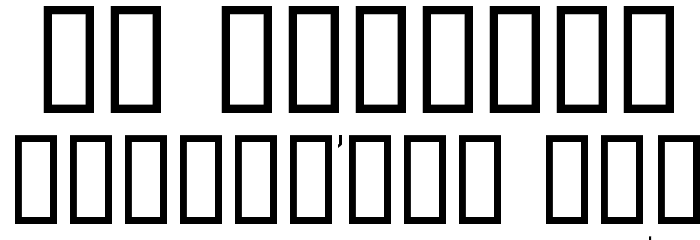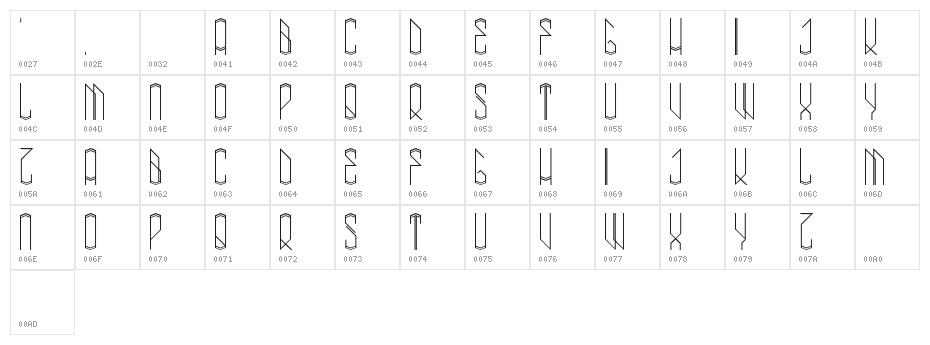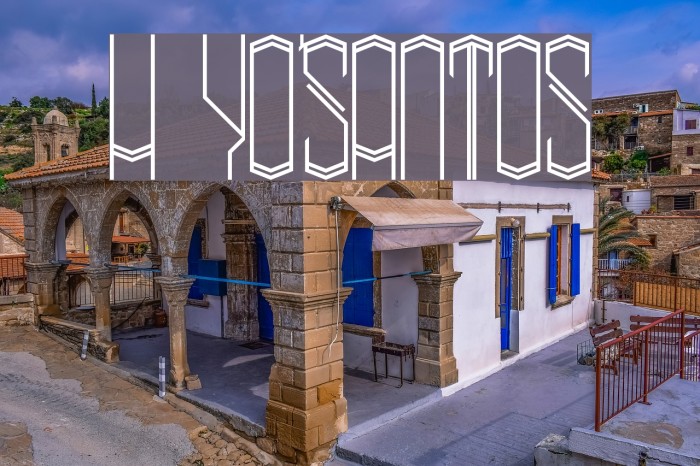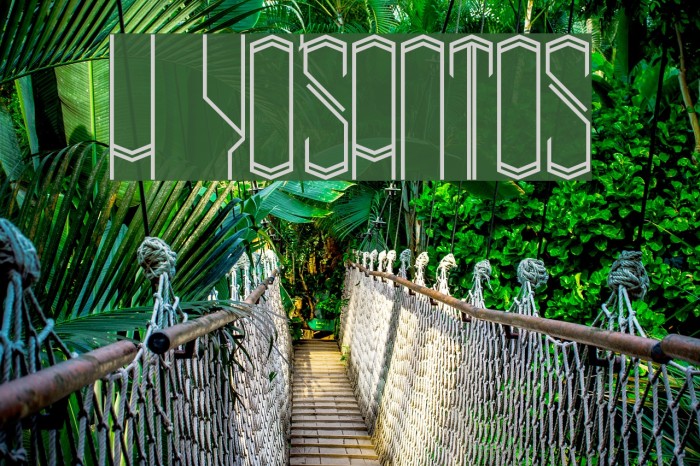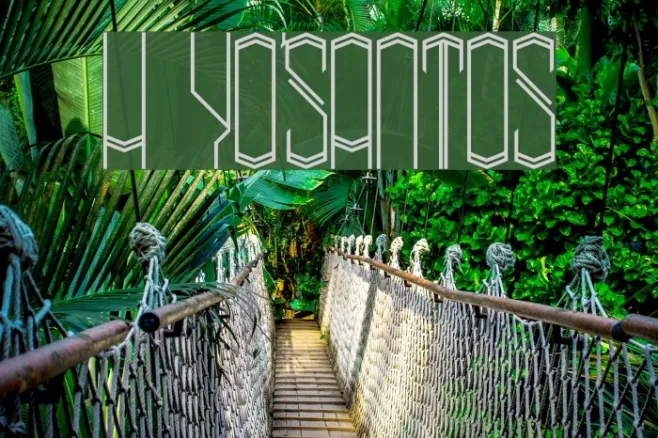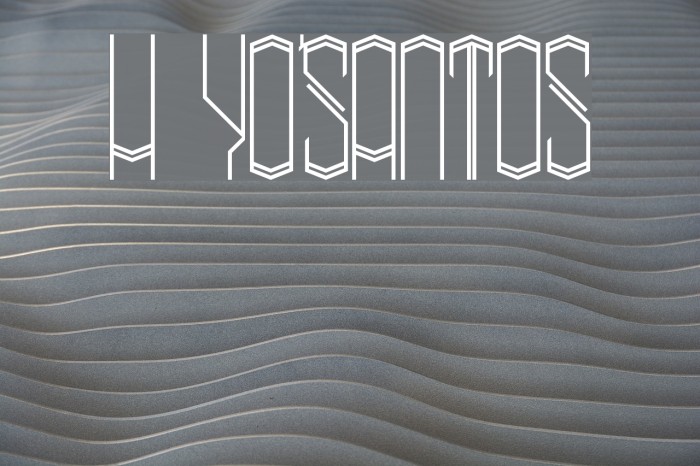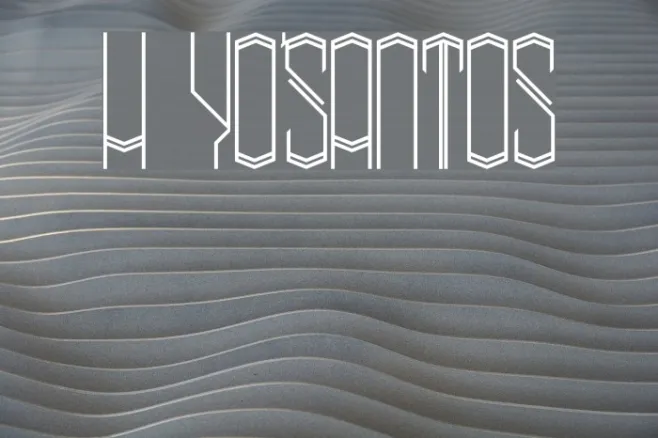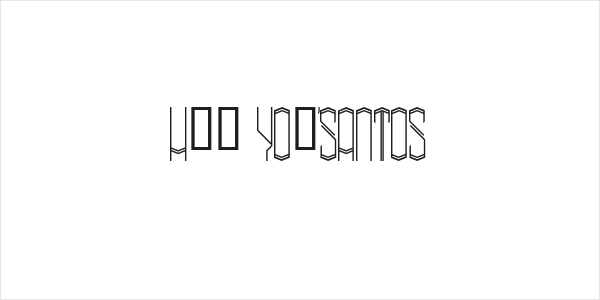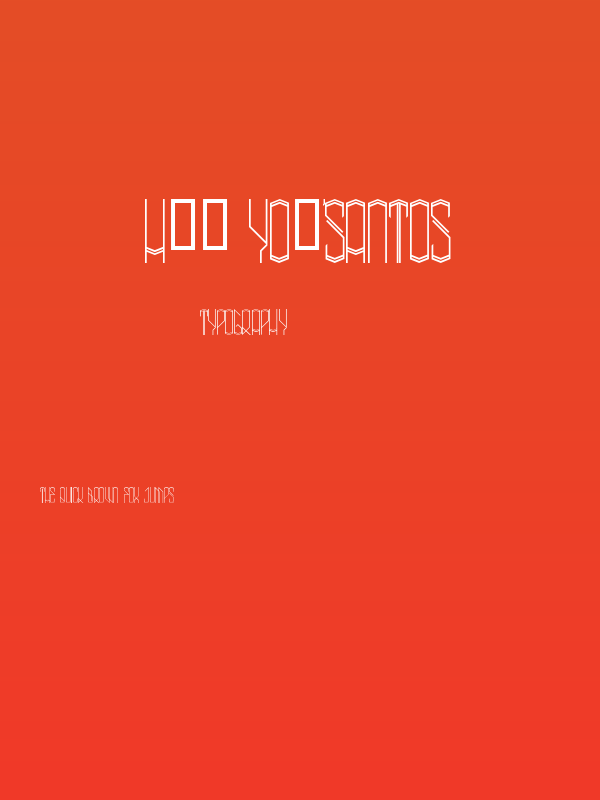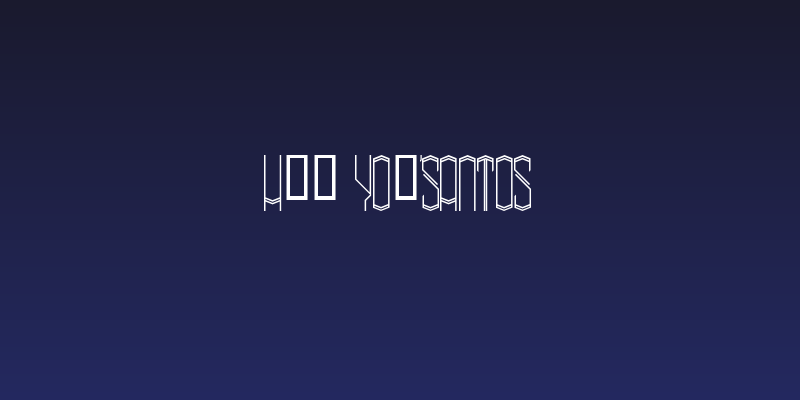
H74 Yo'Santos Font
H74 Yo'Santos Description
This font features a highly geometric and angular design, characterized by its sharp lines and intricate patterns. Each character is constructed with a series of parallel lines and angles, creating a three-dimensional effect that is both striking and modern. The uppercase and lowercase letters maintain a consistent style, with a focus on verticality and symmetry. The numbers and special characters follow the same design principles, ensuring a cohesive look across all elements. This font's unique structure makes it stand out, offering a bold and futuristic aesthetic.